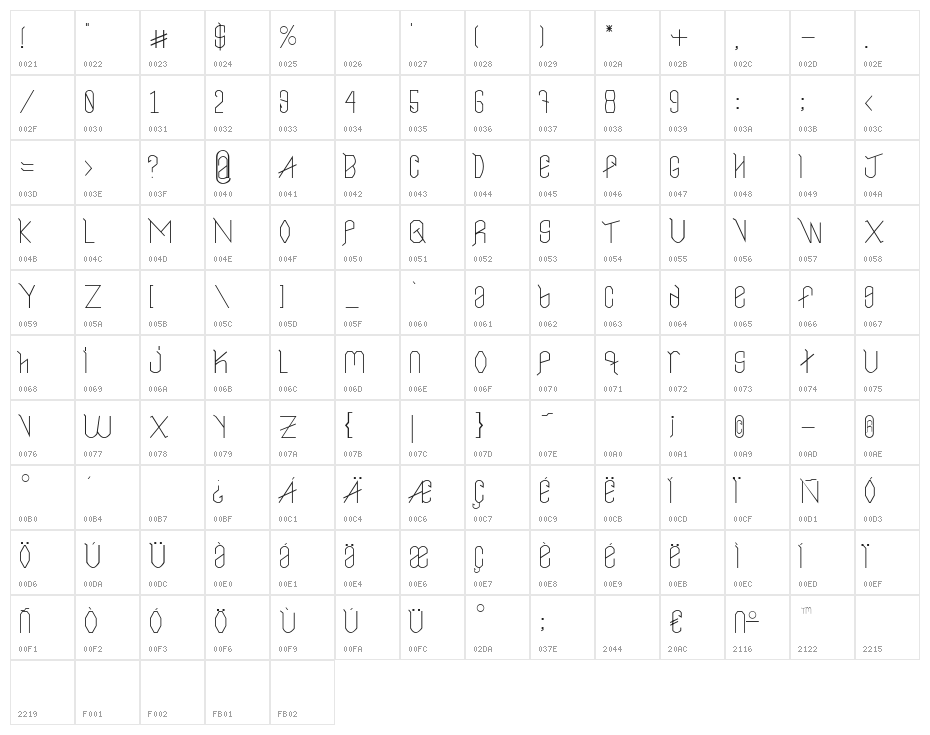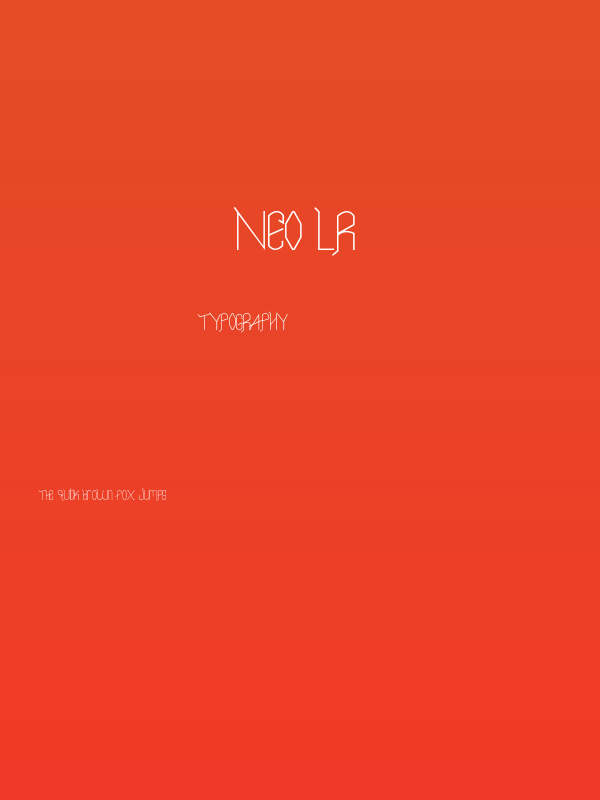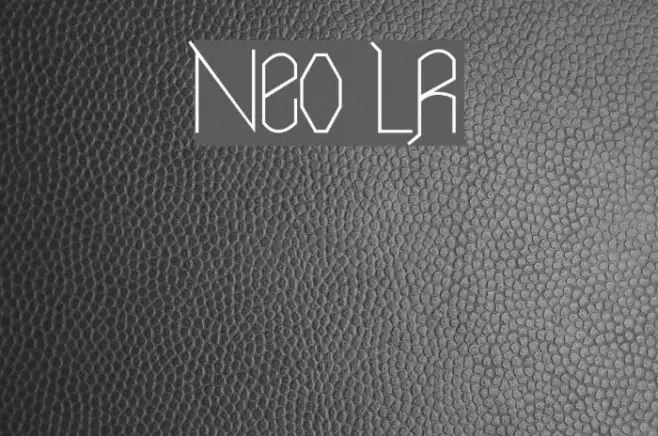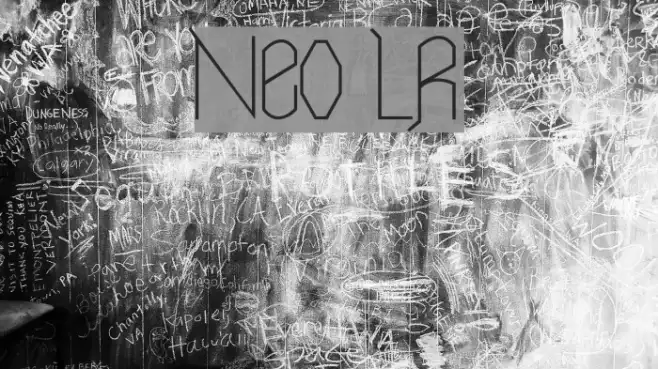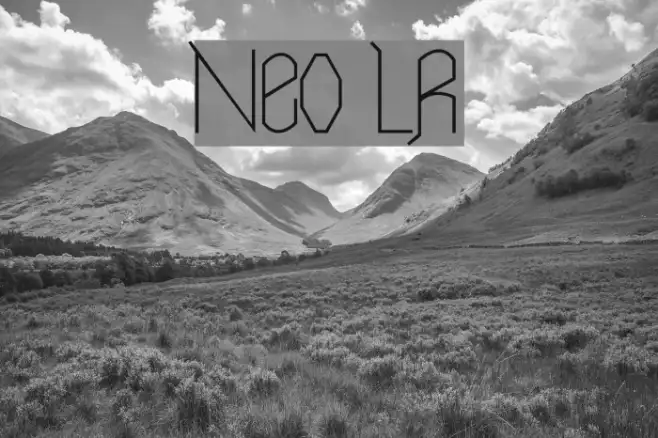
Neo LR Font
Neo LR Description
This font features a unique, geometric design with elongated, angular strokes. The characters are constructed with a consistent line weight, giving it a modern and futuristic appearance. The uppercase and lowercase letters maintain a cohesive style, with sharp angles and a minimalistic approach. Numbers and special characters follow the same design principles, ensuring uniformity across all glyphs. The font's distinct style makes it suitable for creative and bold design projects.
| Proposed Projects | Ideal for branding, posters, album covers, and digital media where a modern and edgy look is desired. |